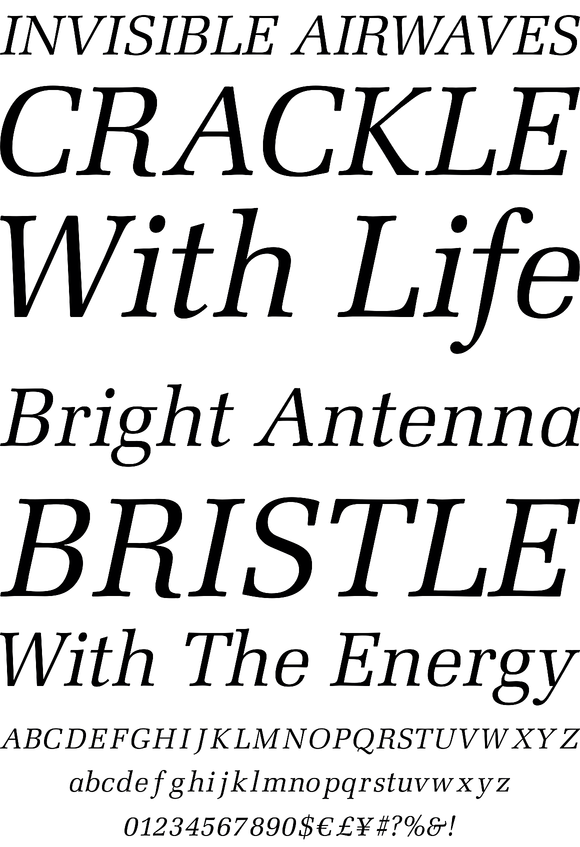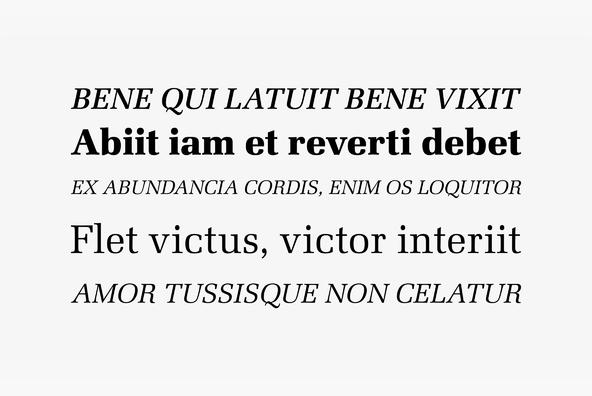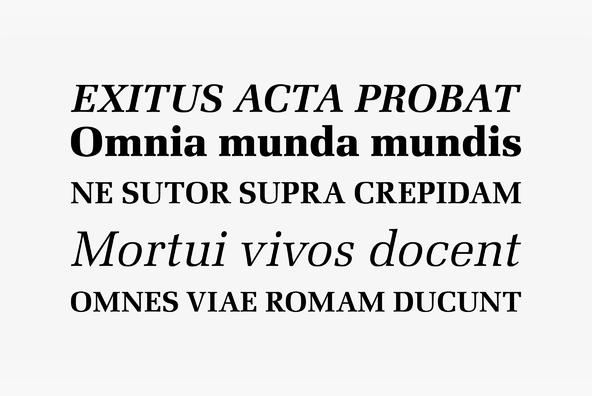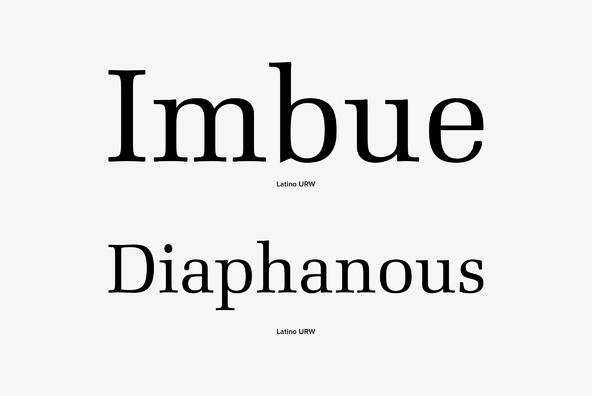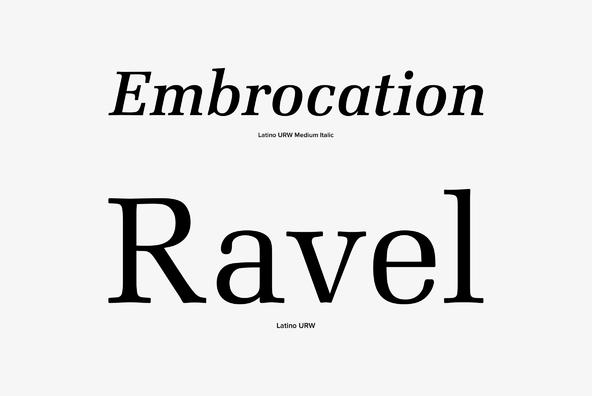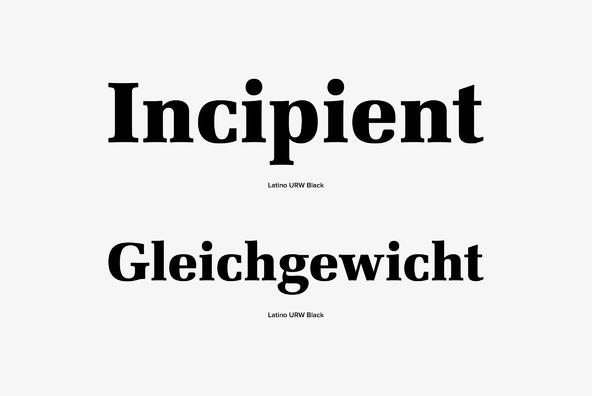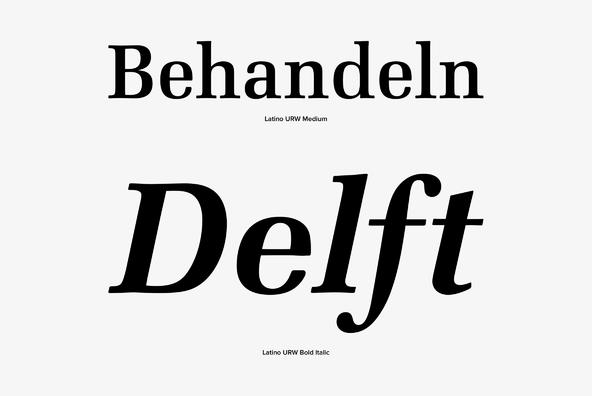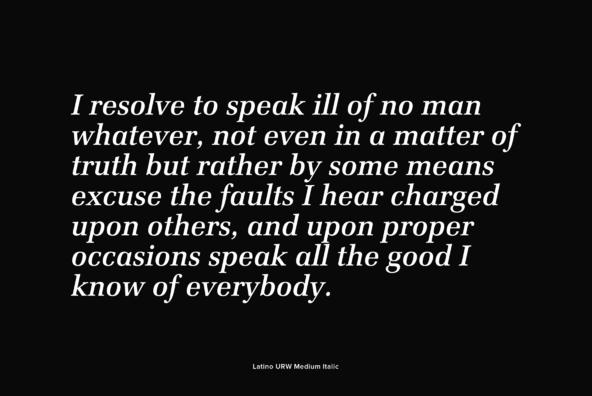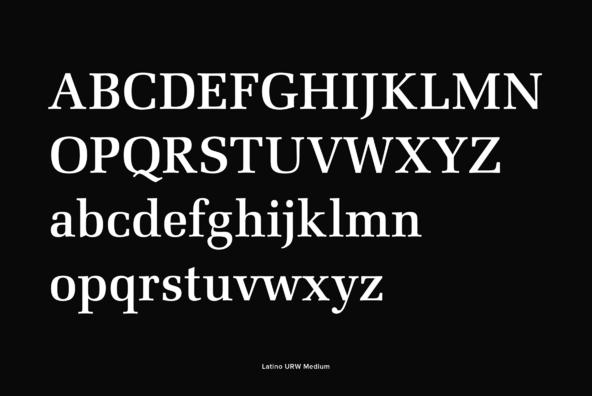
URW Latino
Designed by Hermann Zapf in 1990, URW Latino is an antique, heavy and slab-like serif. Latino contains a very classic and elegant feel, works great for important and high end design projects.